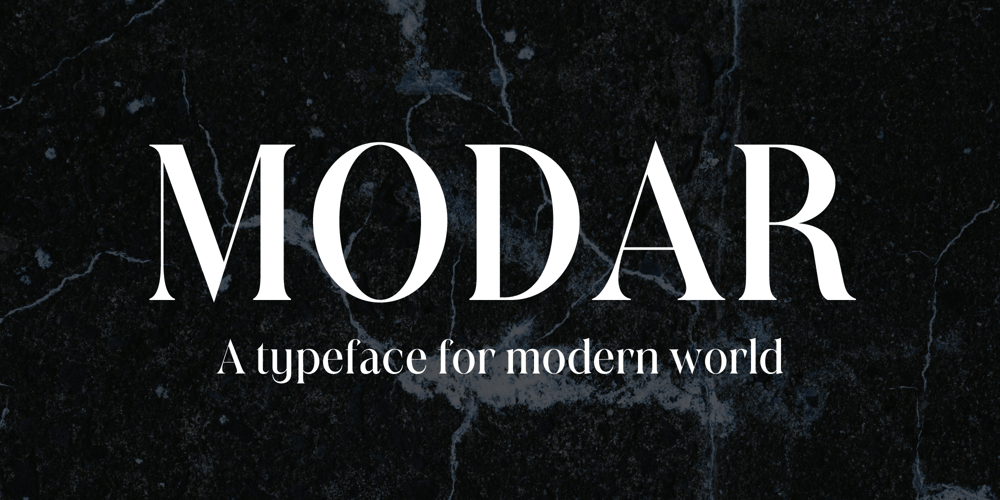
Modar Font Family was designed by SAMUEL DU and published by SAMUEL DESIGN. Modar contains 1 styles and family package options. MODAR means Modern and Artistic. A good font must be enduring and of high quality. This typeface is beautiful and noble, like an elegant sculpture, both historical and modern. This font is great for fashion, magazines, premium services, publishing, and also great for premium brands. MODAR is paired with a sans-serif typeface for a simple yet elegant visual effect. The font is very straight and has high-quality details, combining Eastern and Western aesthetics in one typeface. Designers borrowed classic fonts such as Didot and Canela in this font, combined with the elegant style of personal advocacy, to create 350 characters. I hope this font will help your brand be more visible.